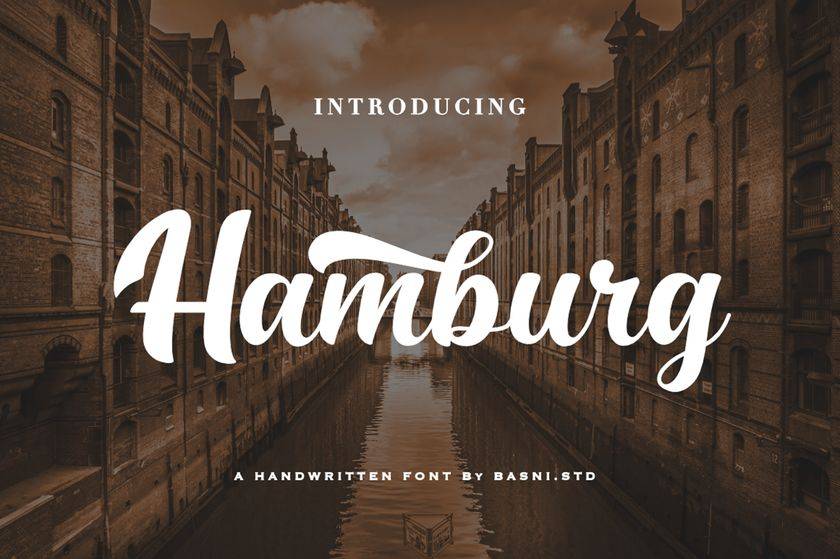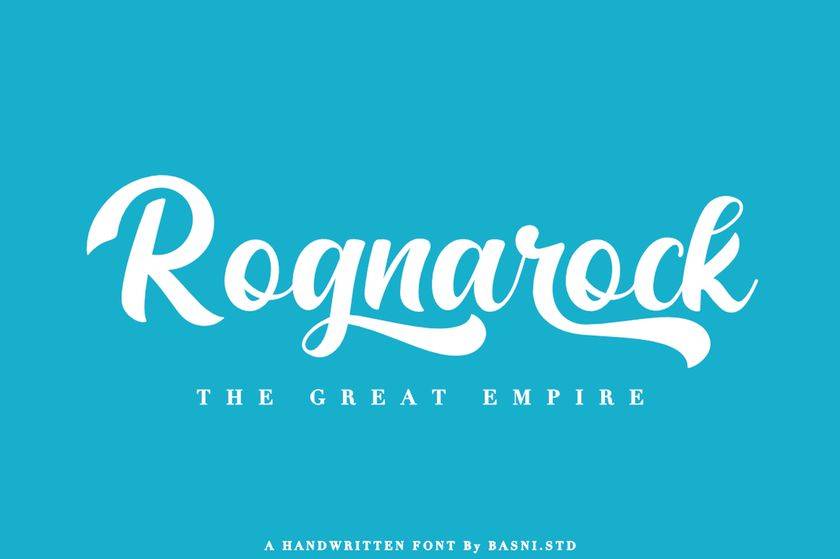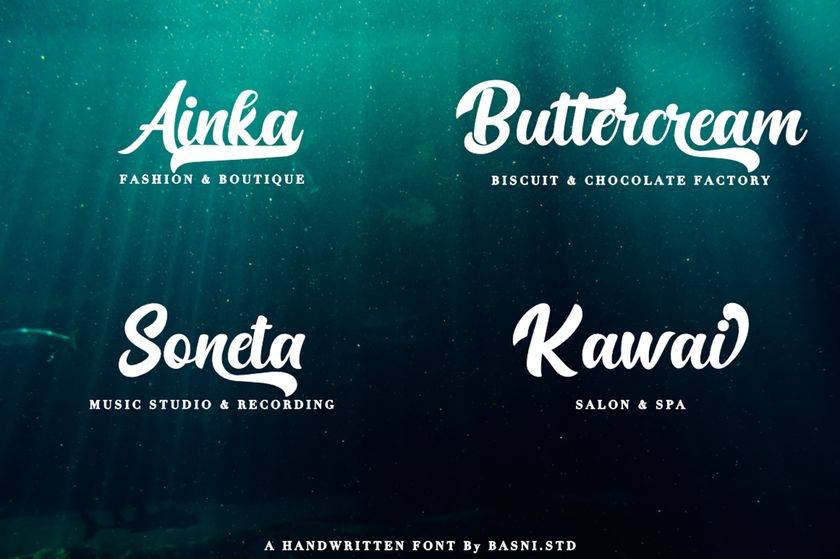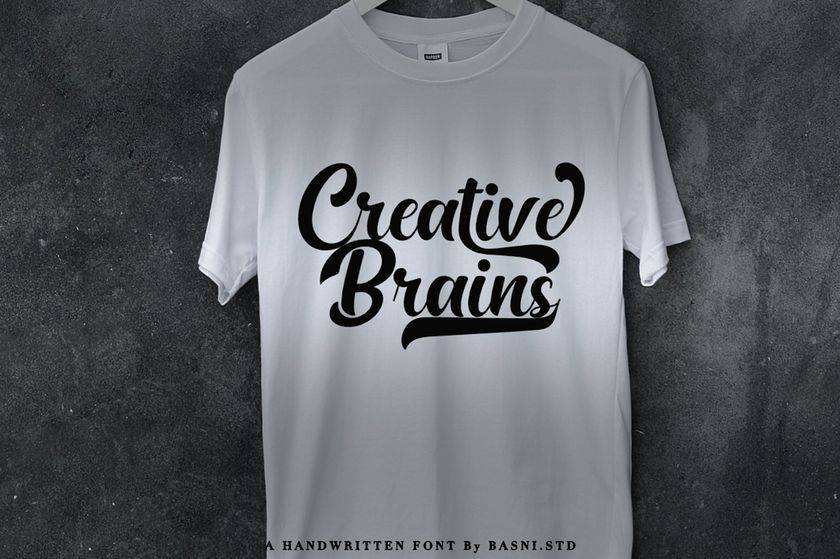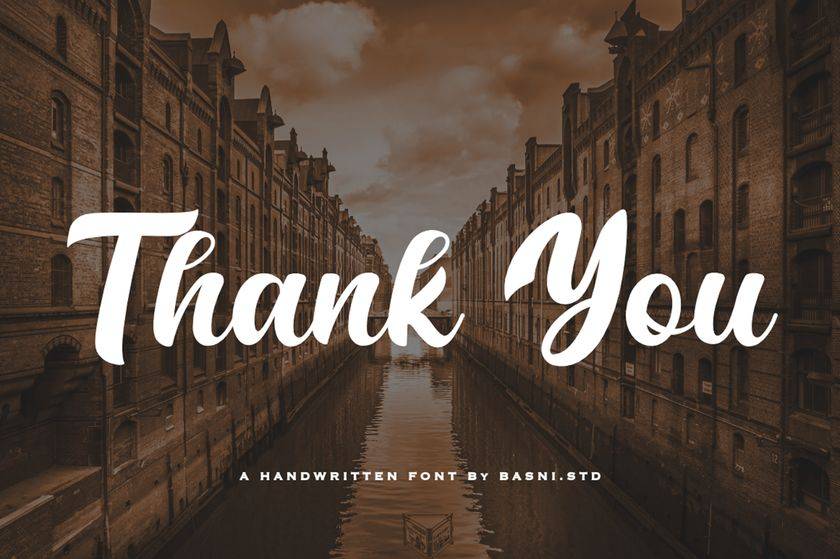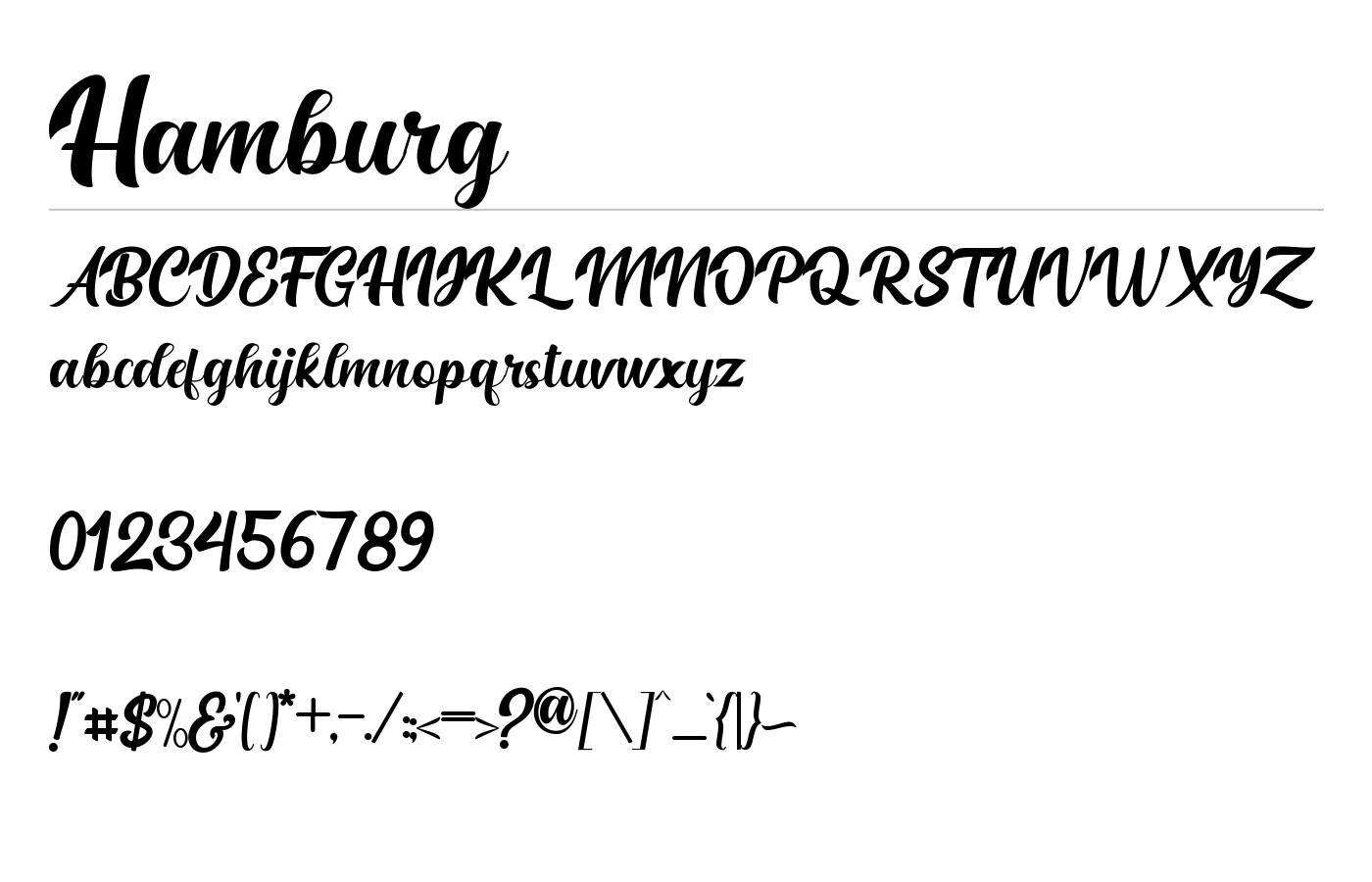
Hamburg is a bold, script font that blends the elegance of classic calligraphy with a modern, smooth flow, featuring a high contrast between thick and thin strokes and slightly condensed letterforms. Its unique, lively character with distinctive loops and curves makes it ideal for stylish branding, invitations, and headlines where a sense of sophistication and warmth is desired. This font works especially well in fashion, luxury packaging, and editorial design, adding a personal yet polished touch to any project.
Hamburg Font
About Hamburg Font